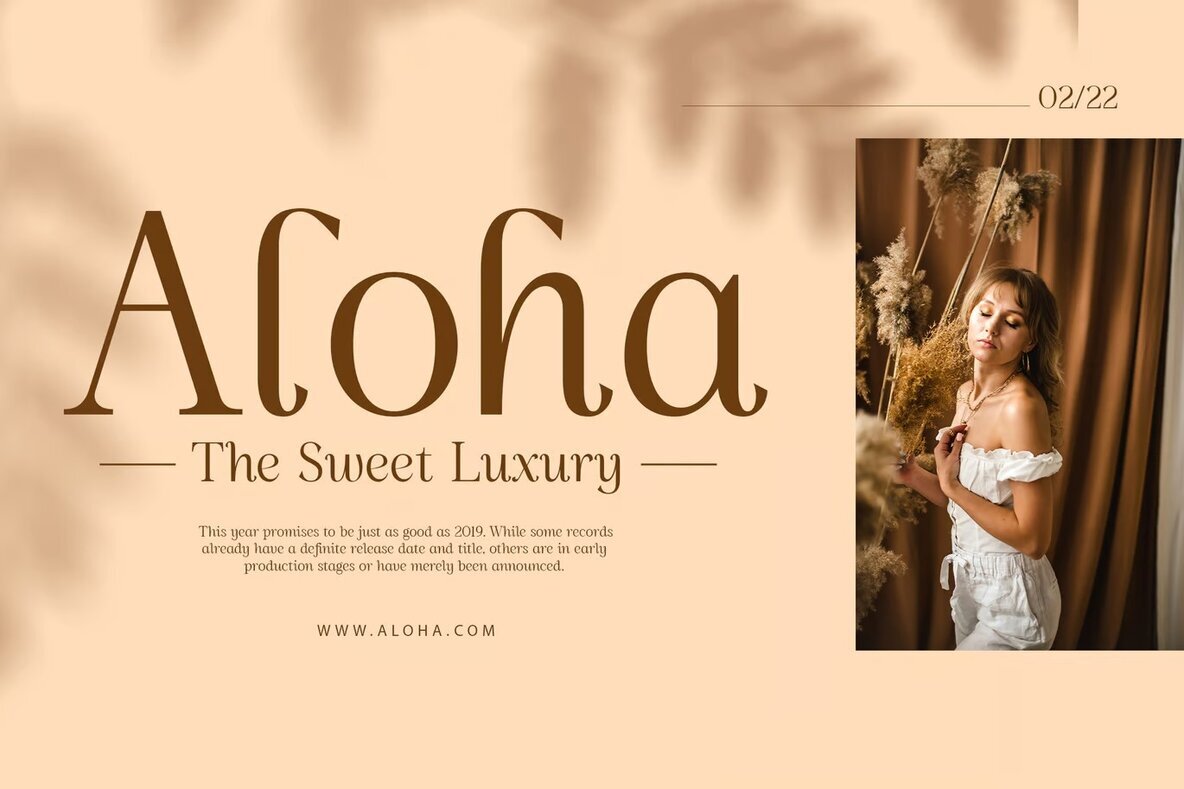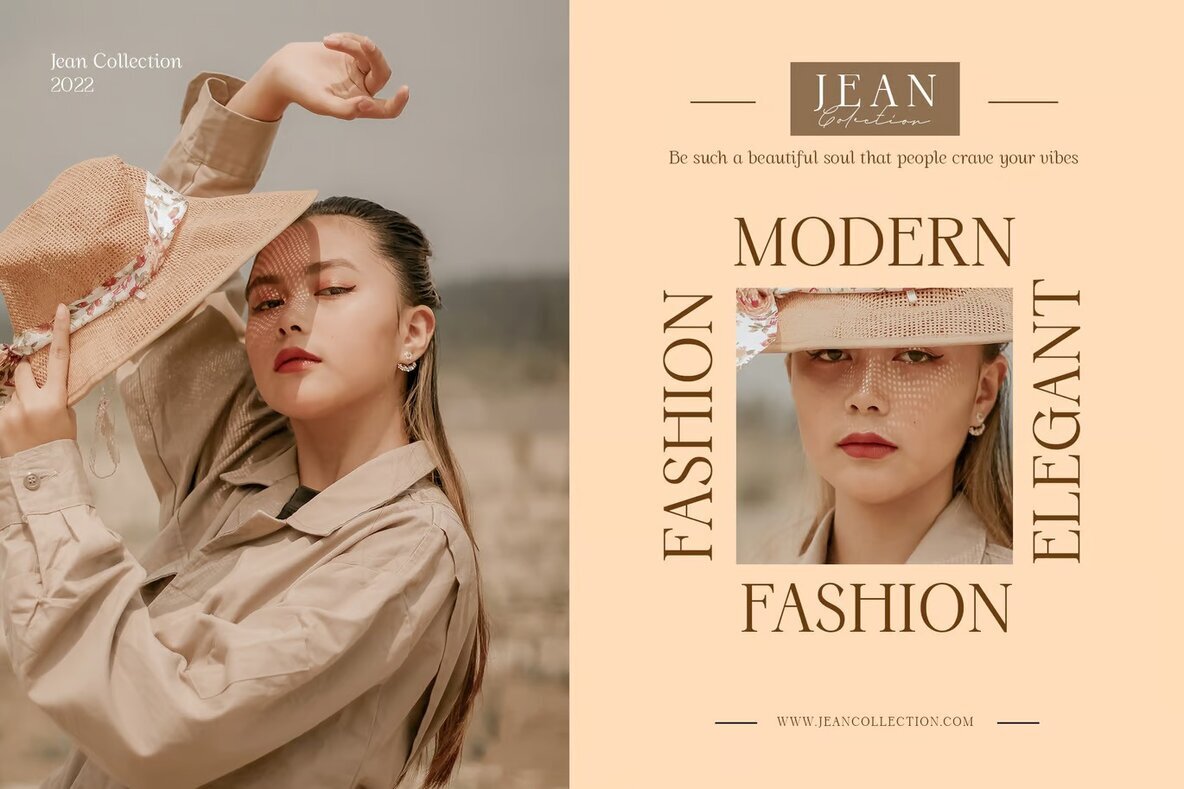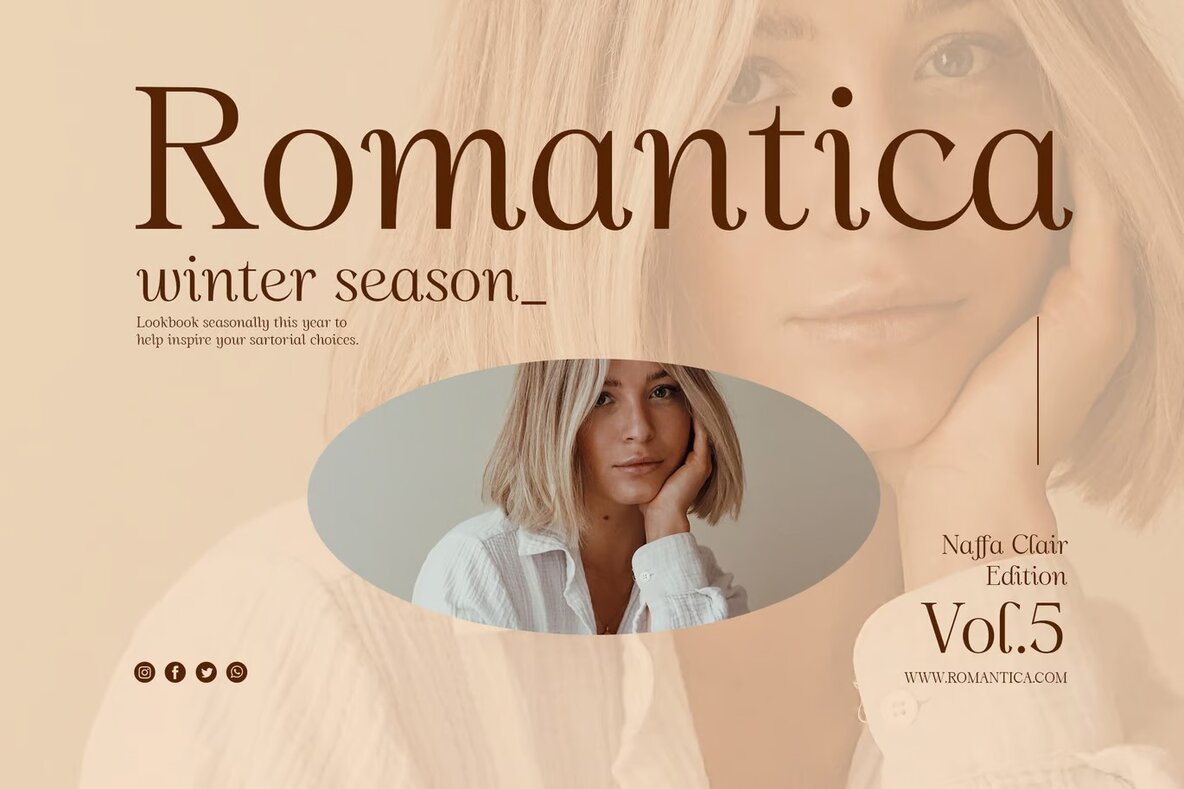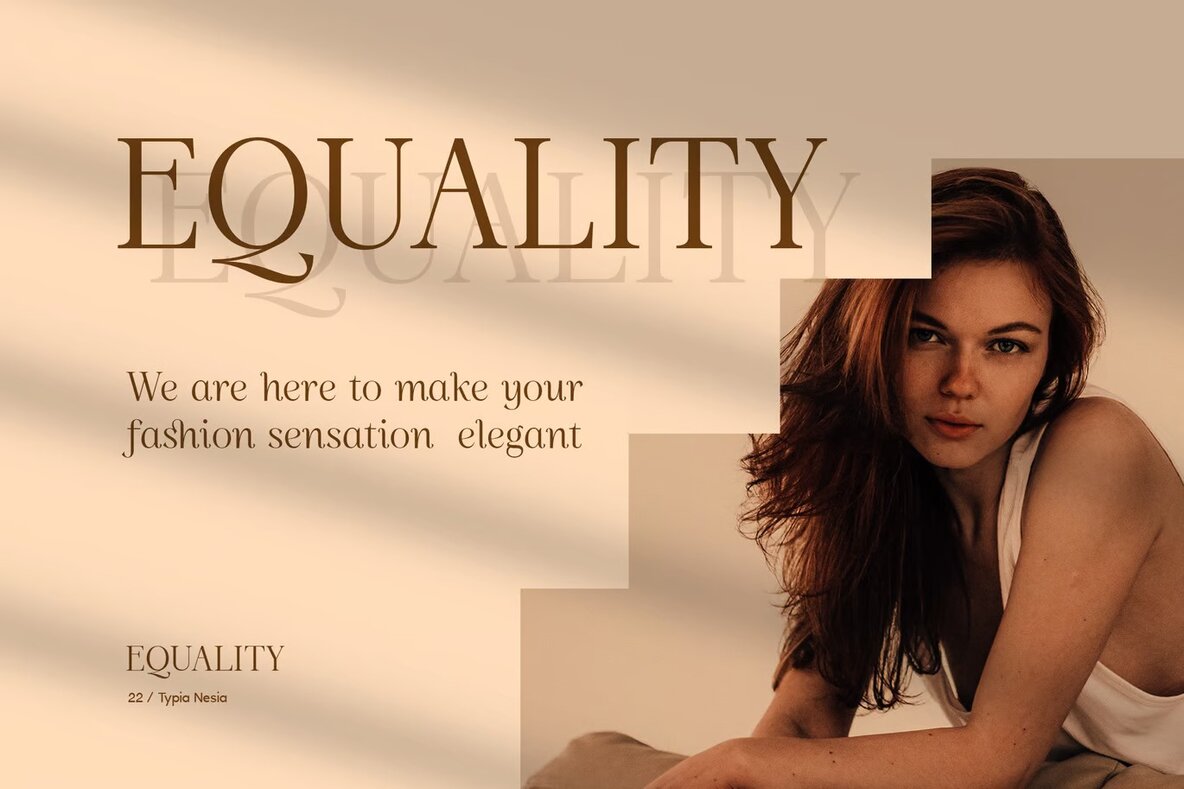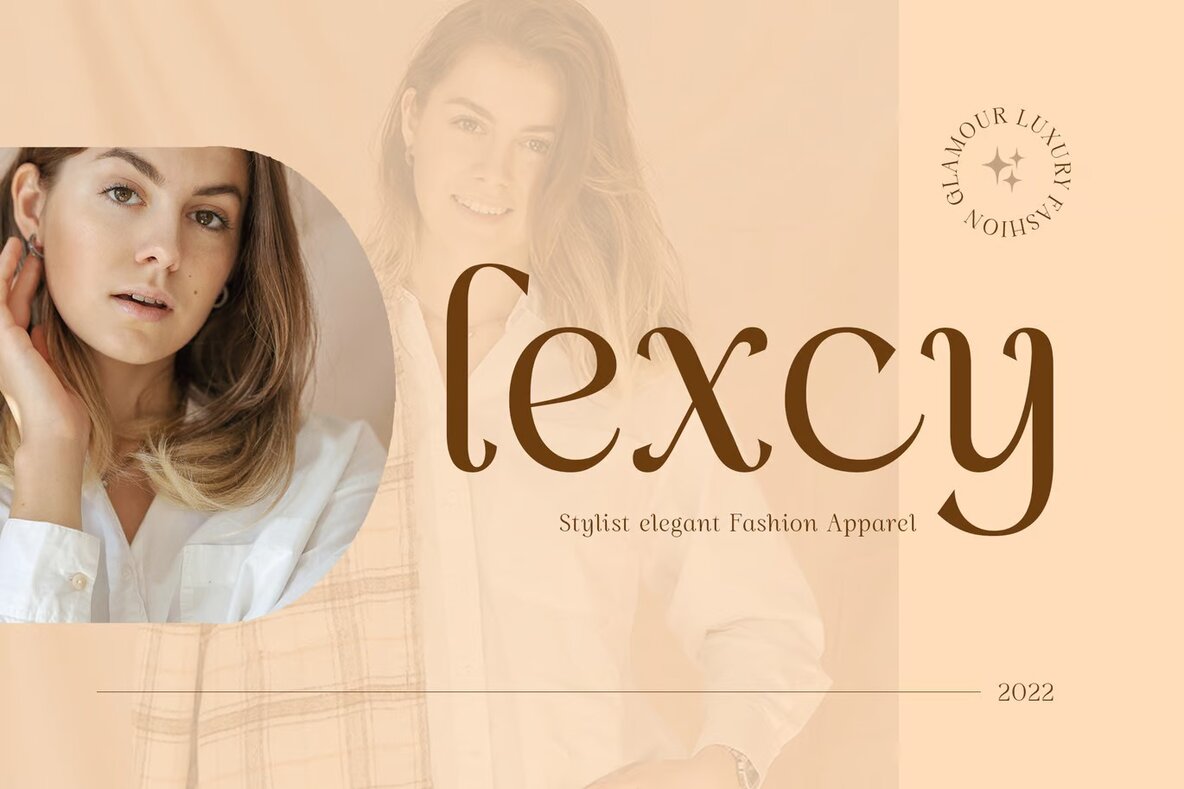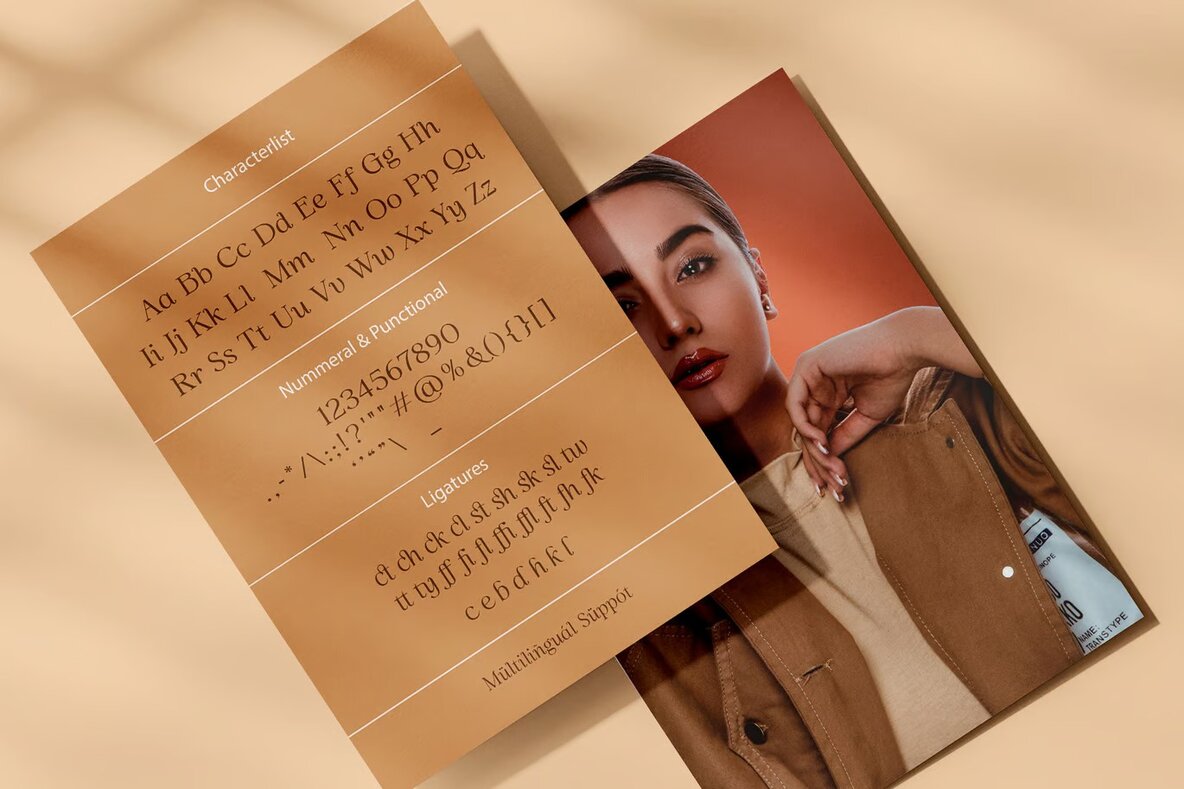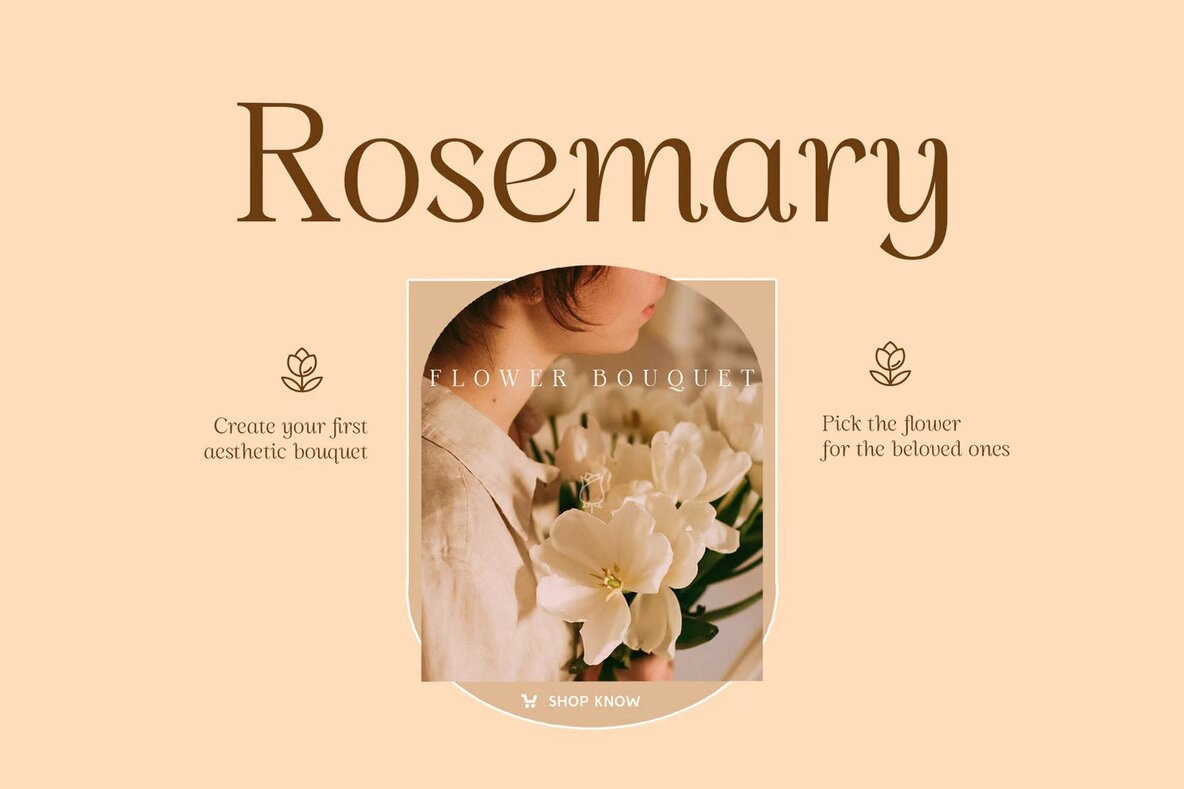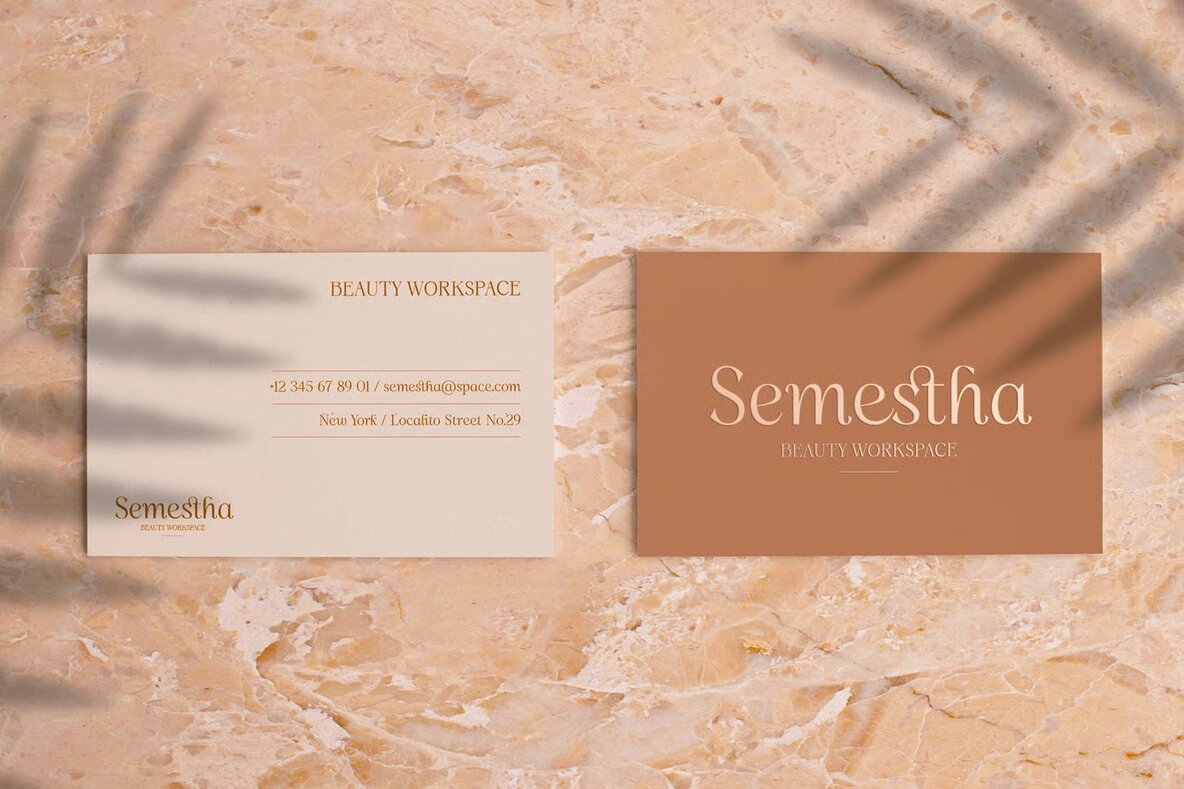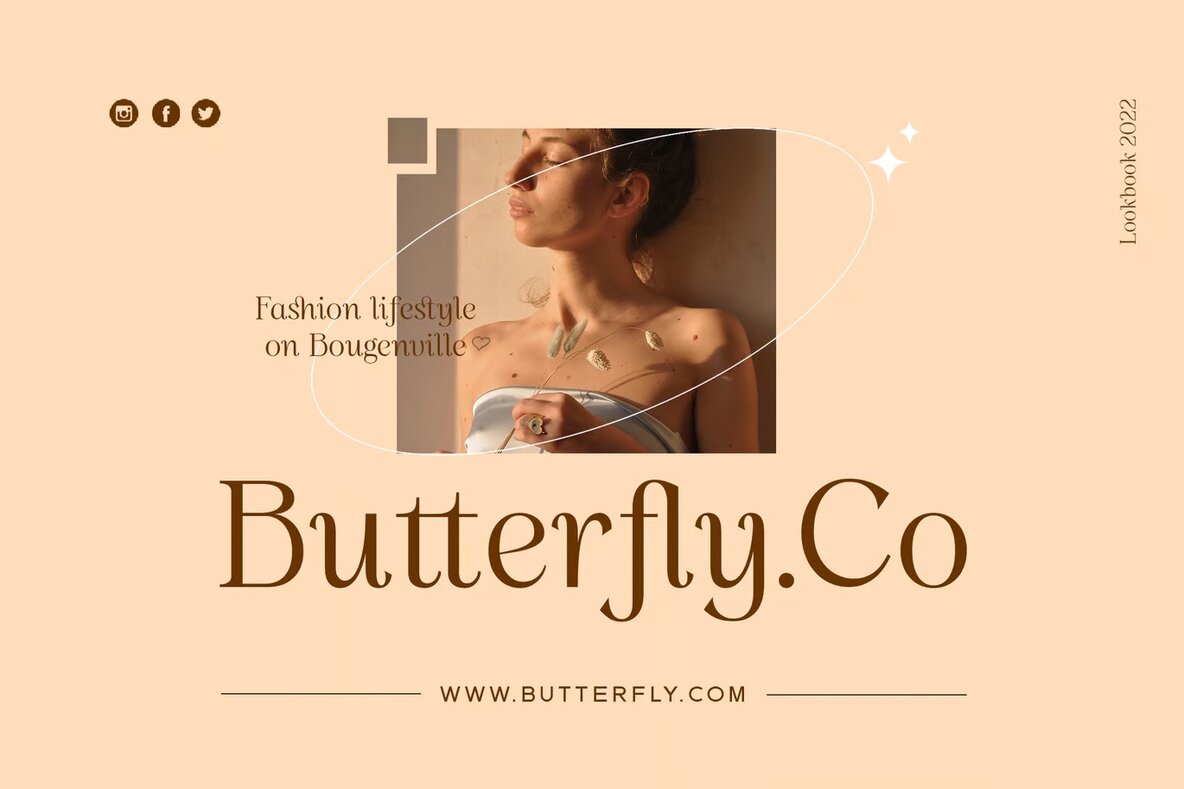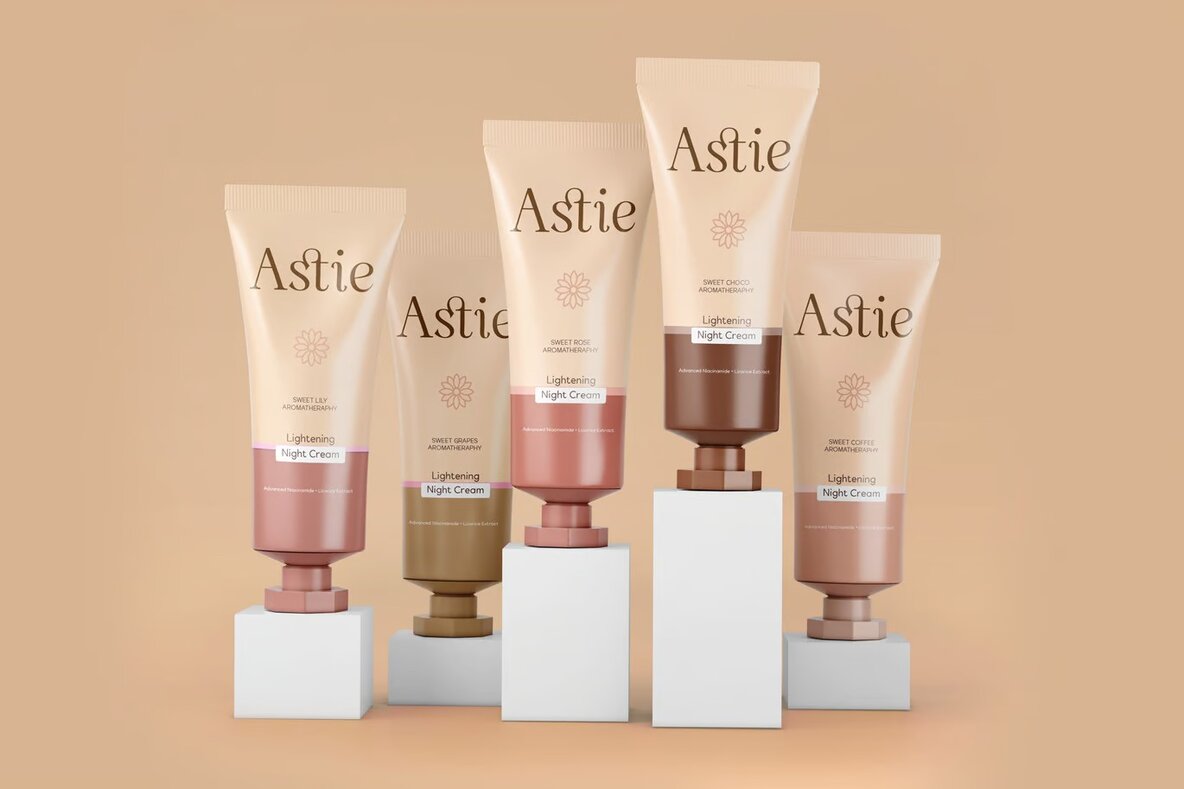
Questwin Font
Questwin Regular
Questwin is a modern serif font that combines elegance and expressive beauty, perfect for a wide range of sophisticated design projects. Its stylish alternates and ligatures allow for creative combinations, making it ideal for luxury branding and logo creation. Whether you're working on a classy editorial layout, a woman's magazine, or a high-end cosmetic brand, Questwin provides a refined touch that enhances the overall aesthetic.
This font is not only suitable for fashion promotions or art gallery branding but also excels in architectural and museum designs, boutique branding, and stationery projects. Its versatility extends to modern advertising designs, art quotes, and book covers, offering a graceful option for home decor and event invitations. Questwin is a perfect choice for any designer seeking to infuse projects with a touch of elegance and sophistication.